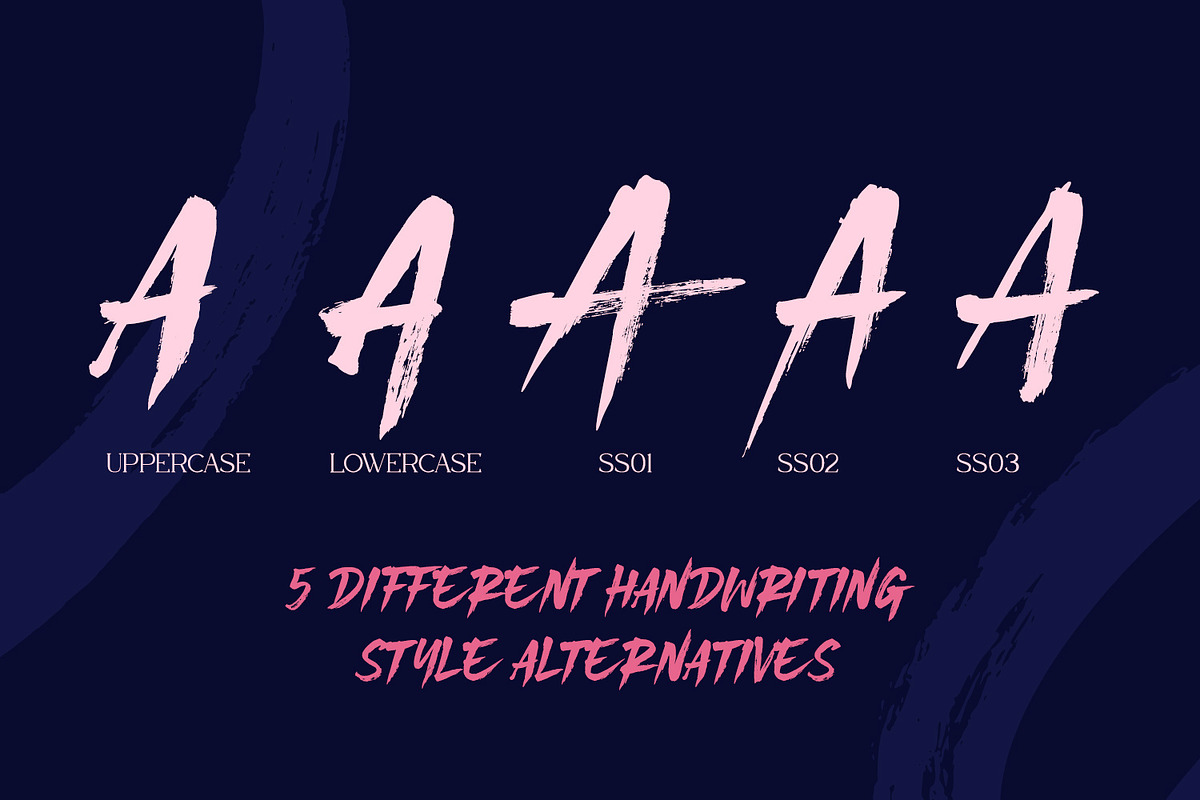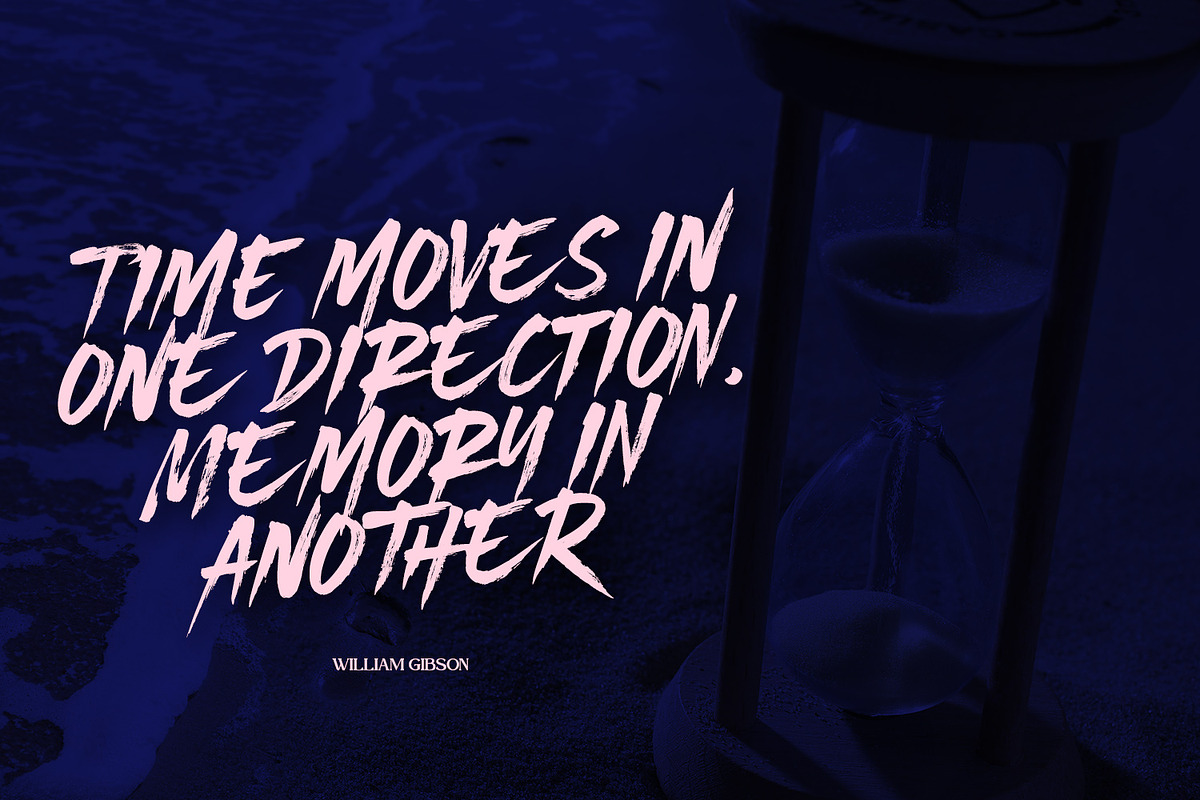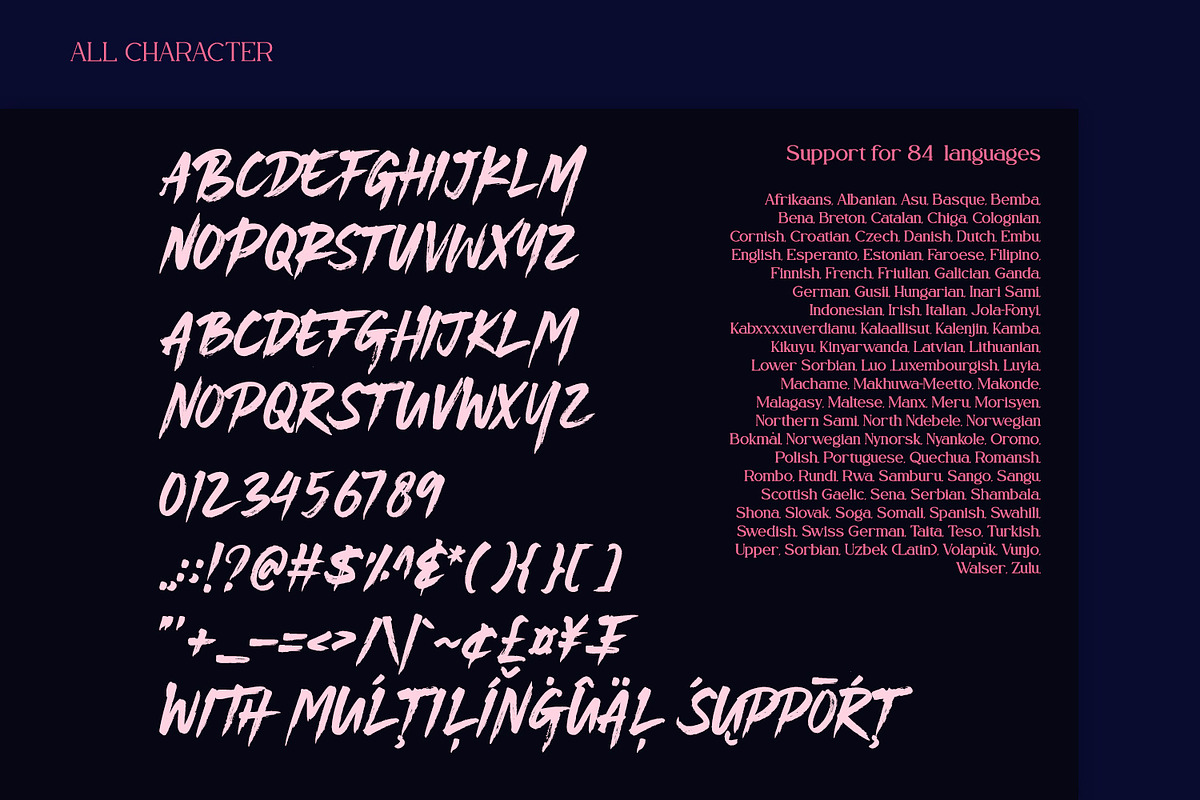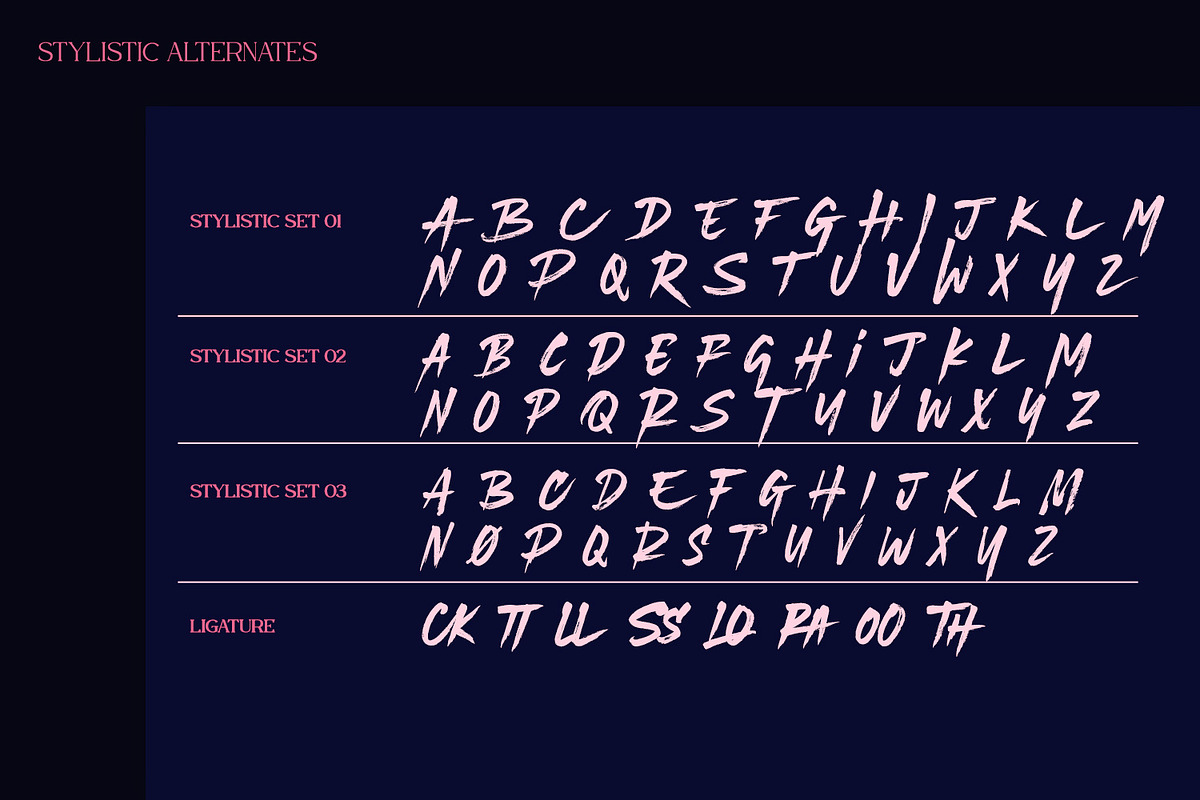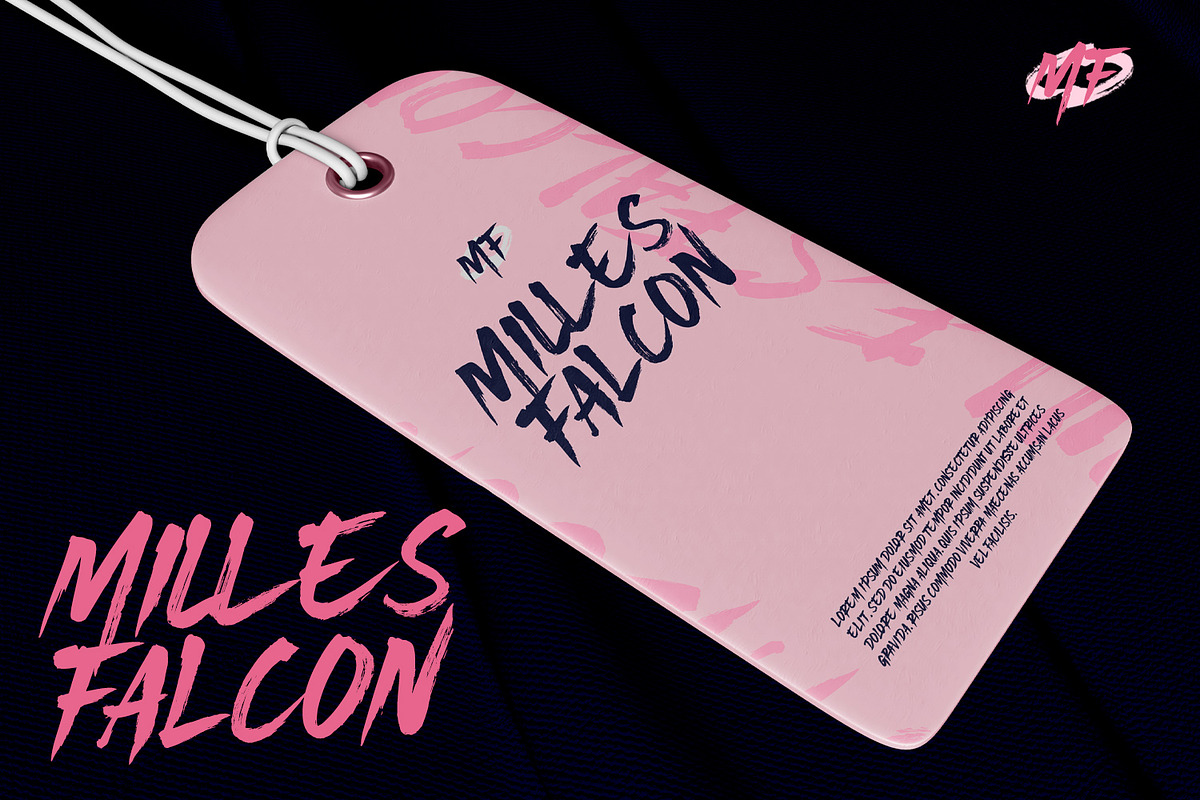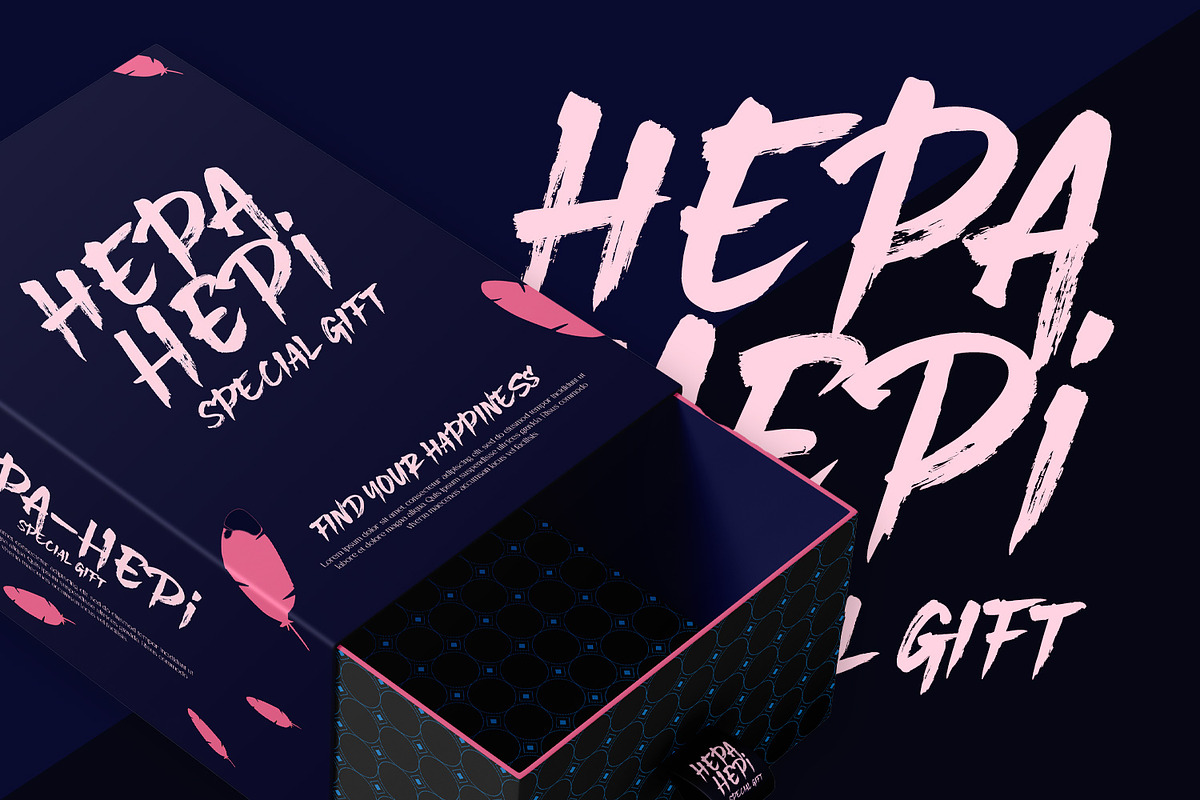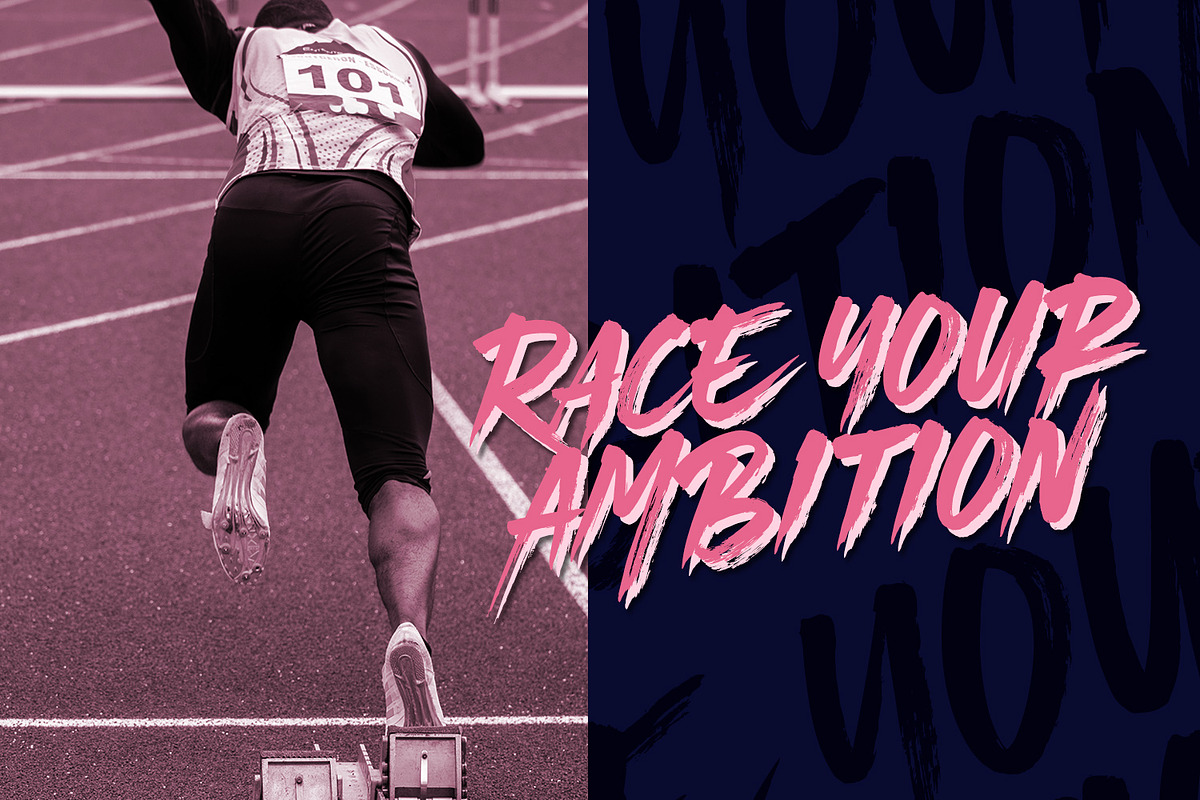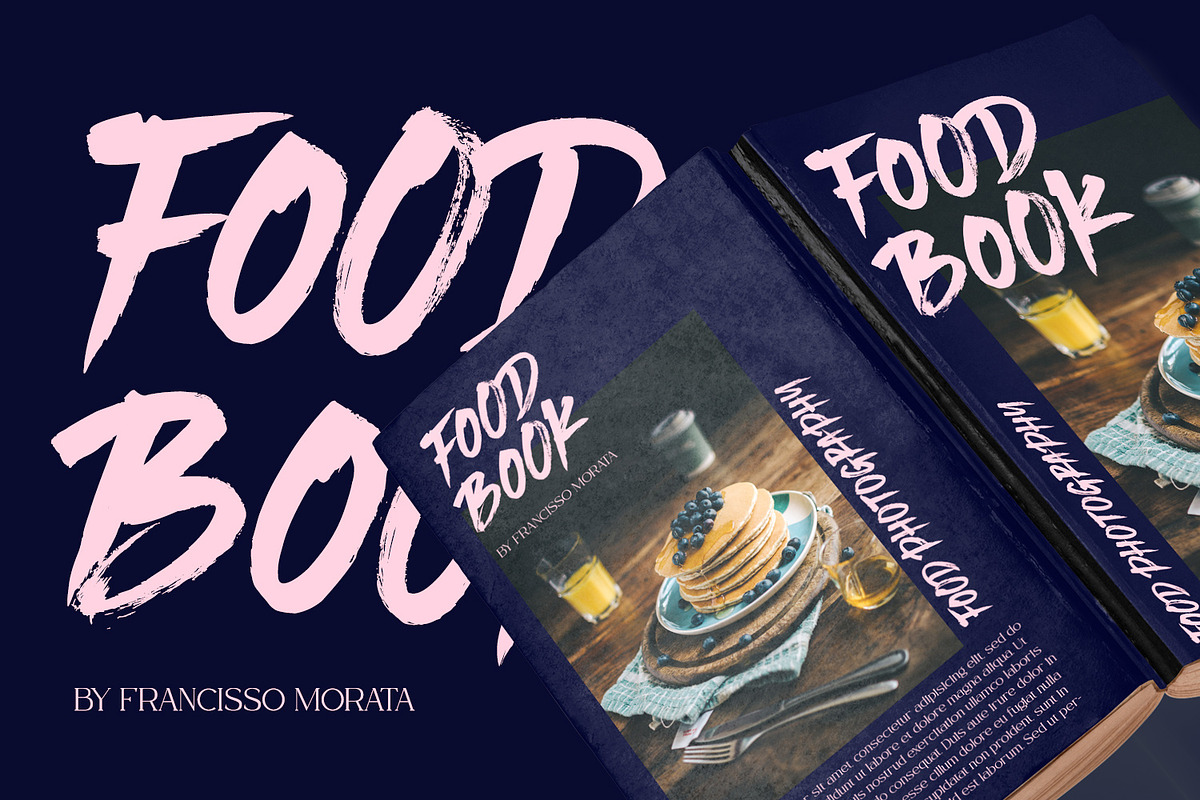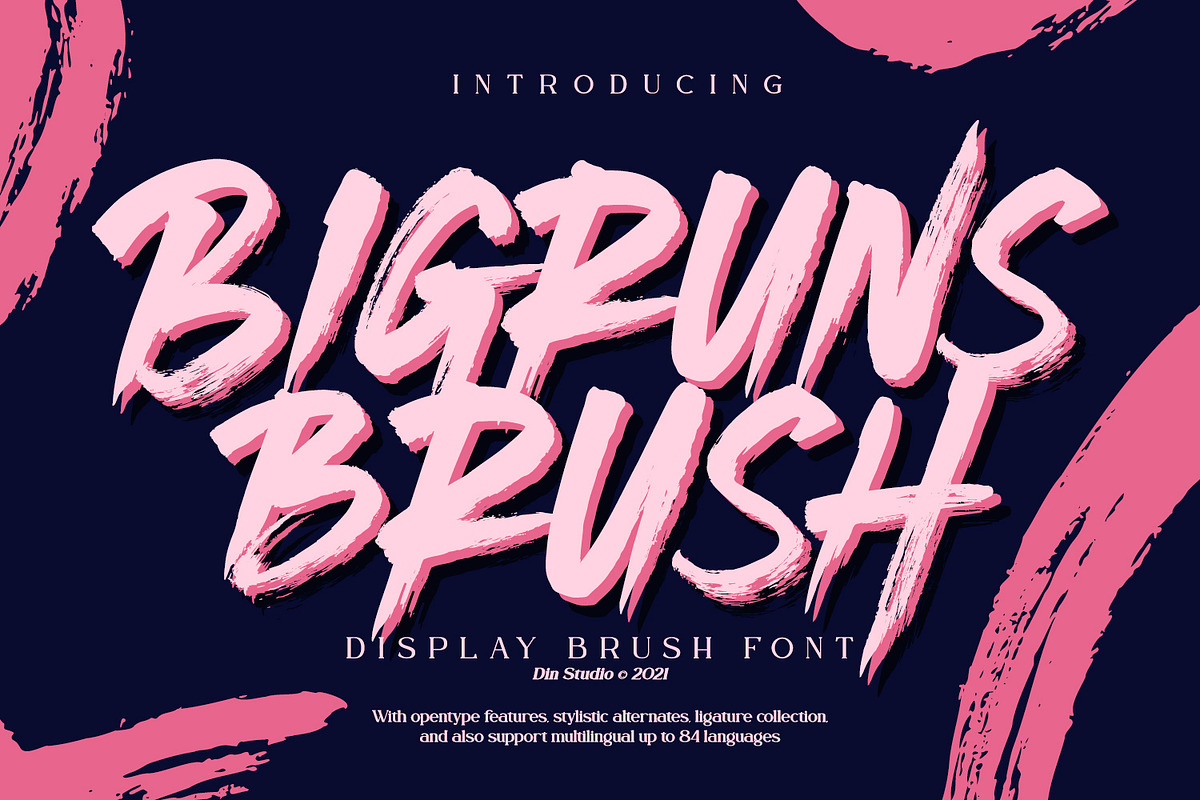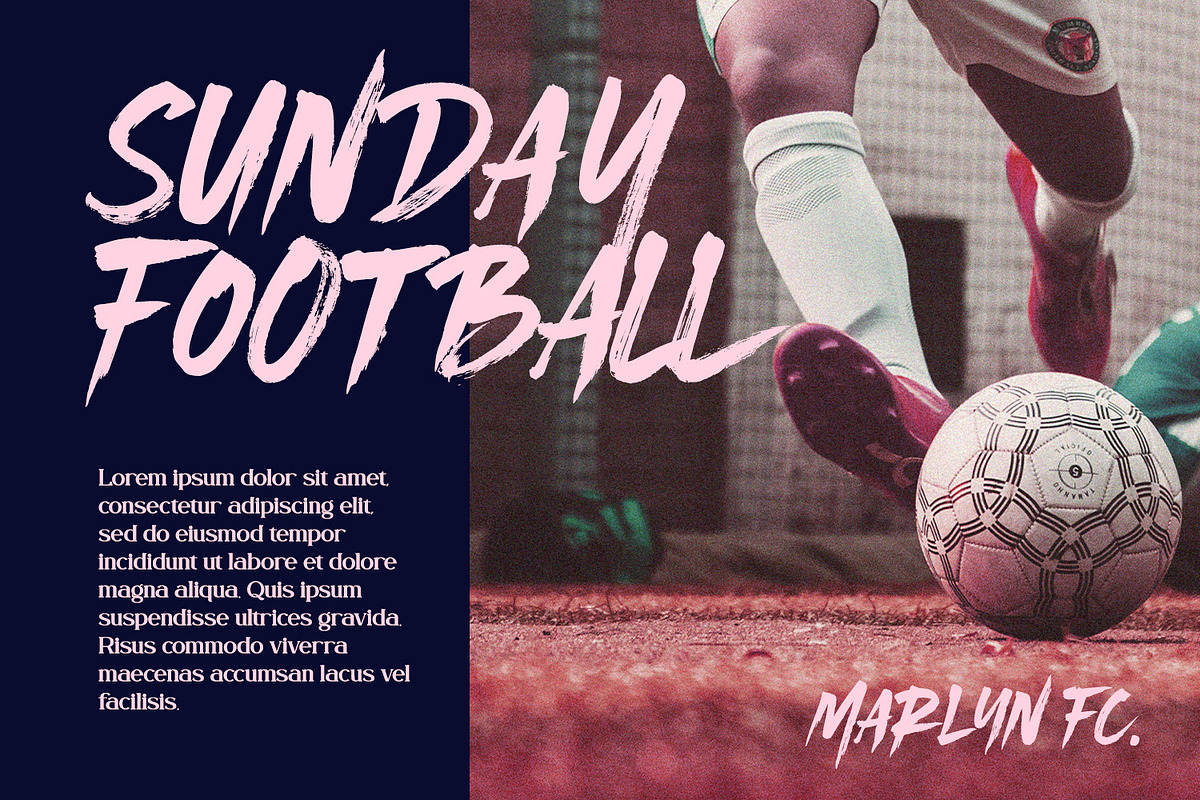
Bigruns Brush
Looking for a font that will make your branding stand out? Do you sometimes have an appetite for a bit more wholesome typography? Looking for a fabulous, stylish, and adventure font? We've got what you want.
Bigruns Brush - A Display Brush Font
Bigruns Brush is a display font is accompanied by a gorgeous handcrafted script brush font that works together in perfect harmony. This font imade all in uppercase that easy on the eyes and nice to look at while it’s also easy to read. Designed primarily as a captivating font to add the right amount of modernity and style, The best choice to ensure a great font match for your designs and projects! Well suited to titles, poster designs, branding, quotes, and logos.
- Stylistic Set